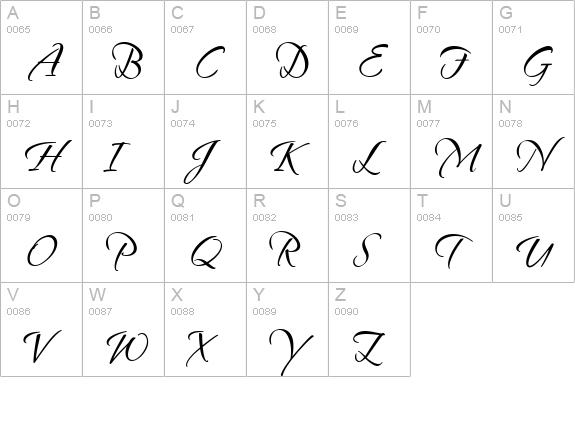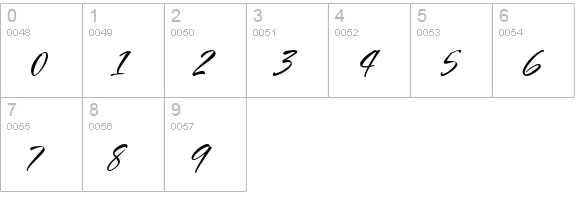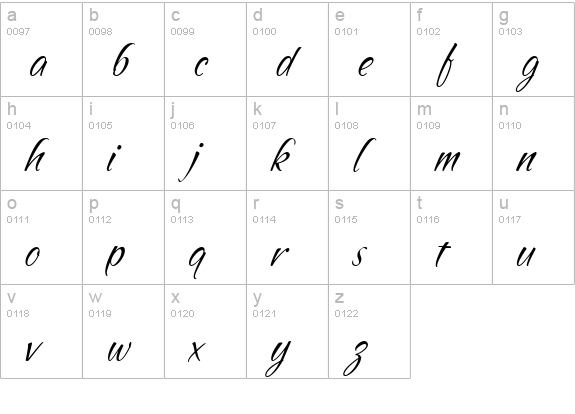
SandyTextHmkBold Font Details
Introducing SandyTextHmkBold, an exquisite font that combines elegance with a touch of boldness. This font brings a unique and captivating vibe to any project, making it perfect for creating eye-catching headlines, stylish logos, or stunning invitations. SandyTextHmkBold boasts a seamless blend of sophistication and modernity, making it suitable for a wide range of design purposes. Whether you're designing a fashion magazine, a trendy website, or a luxurious branding campaign, this font will effortlessly elevate your creations to new heights. But the best part? SandyTextHmkBold is completely free! Yes, you read that right. This amazing font is freely available to download at FontsMarket.com. We believe that great design should be accessible to all, and with SandyTextHmkBold, you can now create stunning visuals without breaking the bank. Not only does SandyTextHmkBold offer an extensive character set, including uppercase and lowercase letters, numerals, and punctuation marks, but it also features smooth curves and clean lines that add a touch of refinement to any design. Whether you're a professional designer, a passionate hobbyist, or someone just looking to add a touch of elegance to your personal projects, SandyTextHmkBold is the perfect font for you. Download it for free at FontsMarket.com and let your creativity shine with this remarkable typeface.